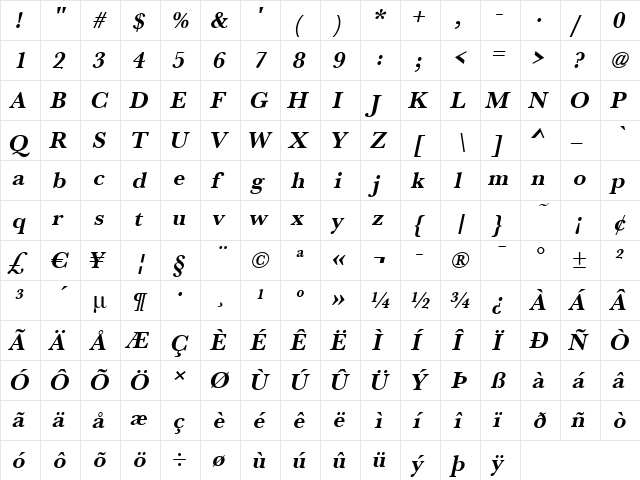
RoxanneBecker Bold Italic Font Preview
Design Context for RoxanneBecker Typeface
RoxanneBecker takes a measured approach to typography — its balanced proportions and neutral character make it a reliable workhorse for both digital and print work. Its italic angle brings a sense of urgency and motion to the letterforms. Its bold stroke weight gives it real presence on the page.
Pro Tip: Try RoxanneBecker for annotation and caption copy alongside an upright companion — the contrast in angle creates a dynamic but ordered typographic system.